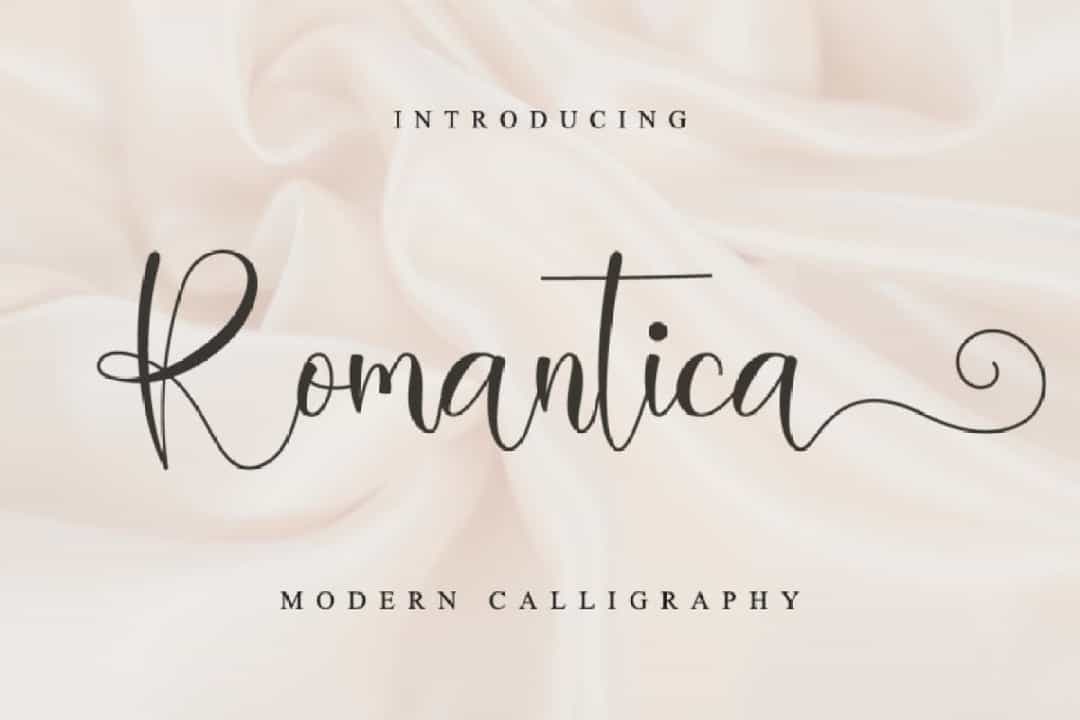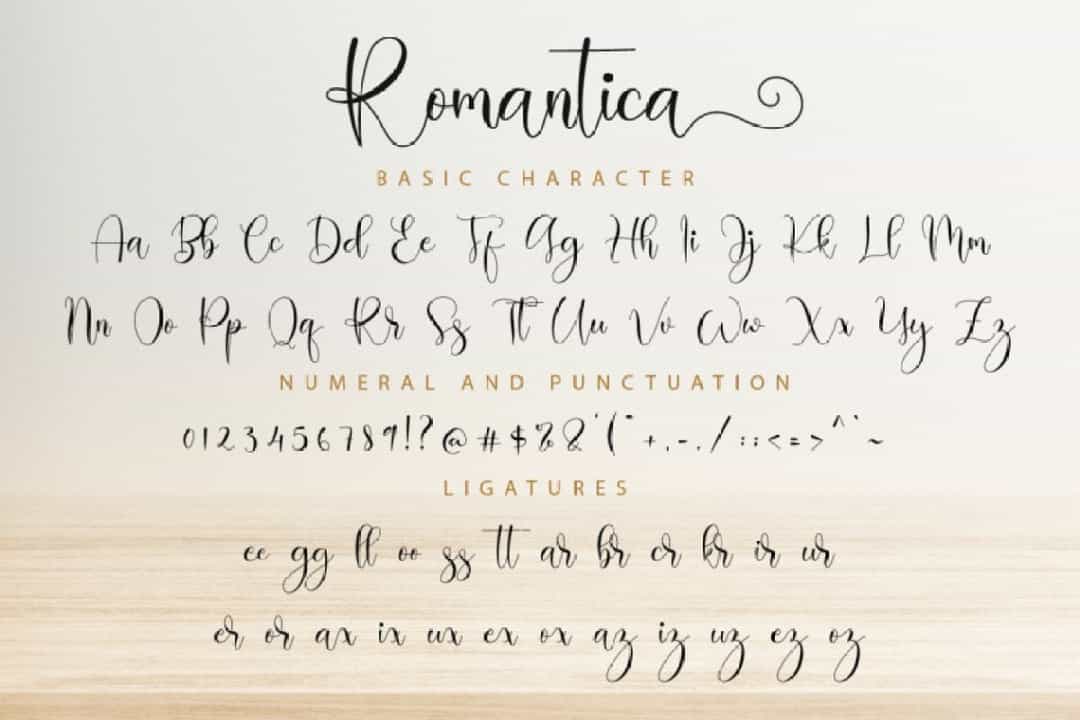
Romantica is a sophisticated font in the script style. Romantica looks up to date and has a royal touch to it; thus, it can be used in the design of logos, invitations, wedding cards, social media posts, and other related items.